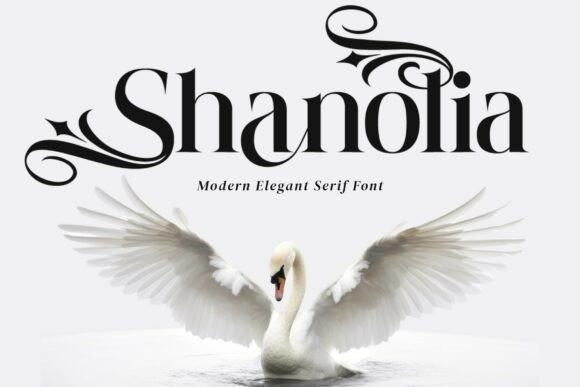
Shanolia Font
Shanolia Font , a modern, elegant serif font that exudes sophistication and grace.
Capture the essence of classic beauty and high-end luxury with Shanodia, a breathtaking, modern elegant serif font defined by its dramatically high contrast and stunning, integrated decorative swashes. This spectacular modern elegant serif font features extremely thick vertical stems paired with delicate, hairline serifs, creating a bold yet graceful visual rhythm that commands attention. The true distinction of the Shanodia typeface lies in its opulent ornamental flourishes, which elegantly extend from select uppercase and lowercase letters, giving your typography the bespoke, customized look of hand-drawn lettering.
The dramatic flair and refined letterforms make the Shanodia font the perfect choice for luxury product branding, high-fashion editorial spreads, sophisticated wedding stationery, and any project where a premium, artistic feel is essential. The intricate yet legible design elevates titles and logotypes, instantly communicating quality and artistry. This dynamic serif display font is an indispensable asset for designers seeking to combine traditional typographic elegance with a powerful, contemporary sense of style and visual impact.
Perfect for branding, wedding invitations, luxury packaging, editorial designs, and more, this font combines timeless style with contemporary details. The intricate swashes and stylish curves make Shanolia the ideal choice for designers aiming to make an unforgettable impression. Pair it with
minimalist layouts or bold visuals to elevate your projects to a new level of elegance.